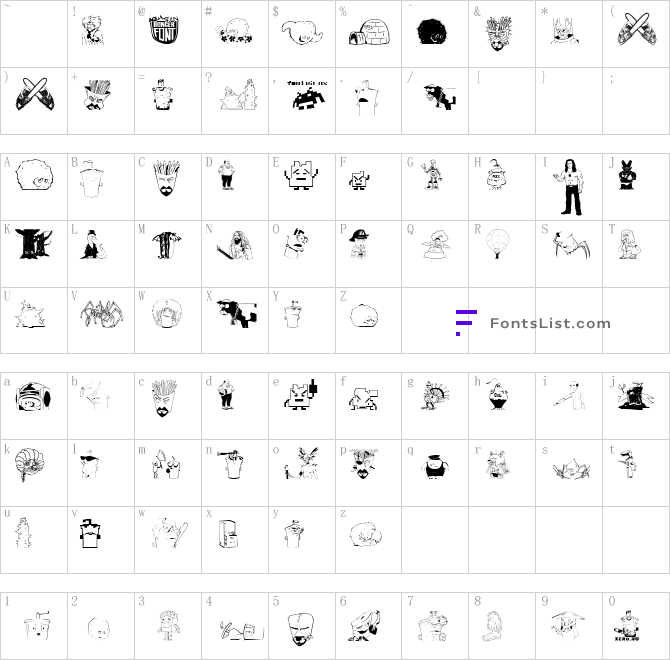
- Font Name:aqua teen hunger font
aqua-teen-hunger-font.ttf is a very beautiful artistic font, aqua-teen-hunger-font.ttf is widely used in the design and printing of various books and pictures,aqua-teen-hunger-font.ttf has a strong visual impact,aqua-teen-hunger-font.ttf is a commonly used font in newspapers, magazines and books, and is used in posters, e-commerce Poster design, store design, logo design, font design and other fields.aqua-teen-hunger-font.